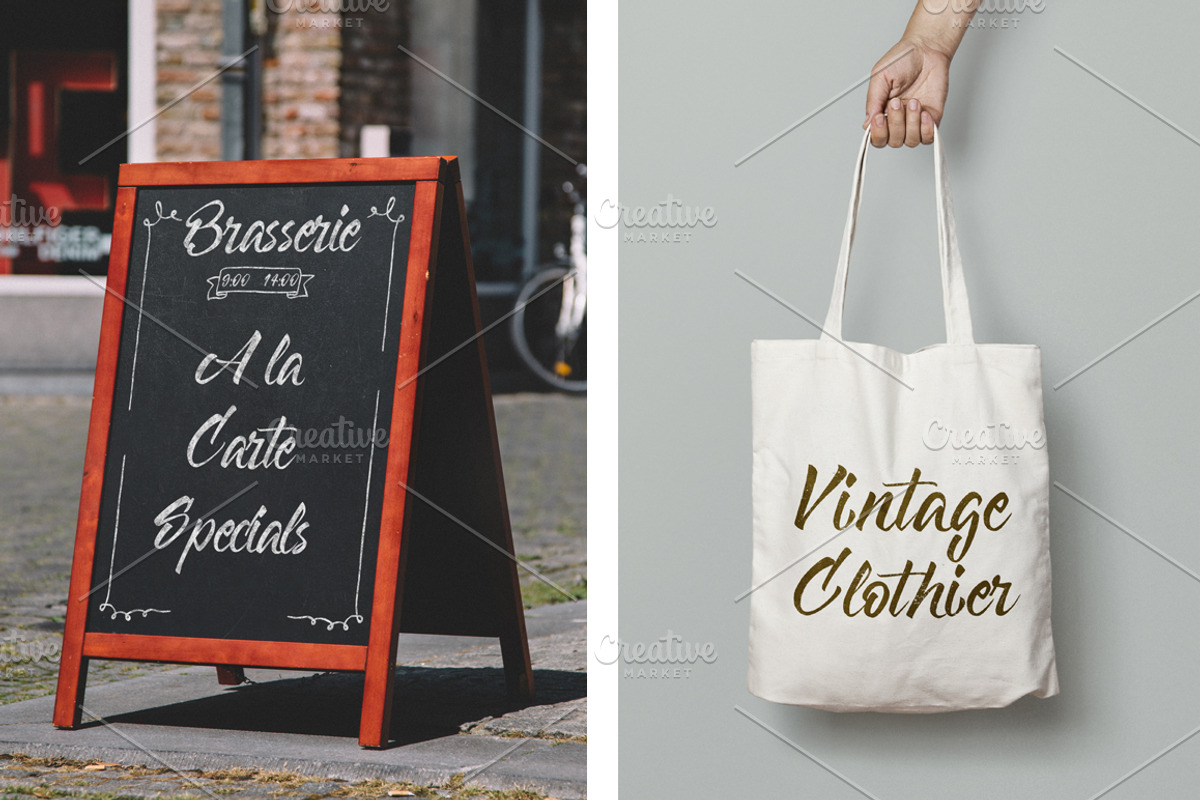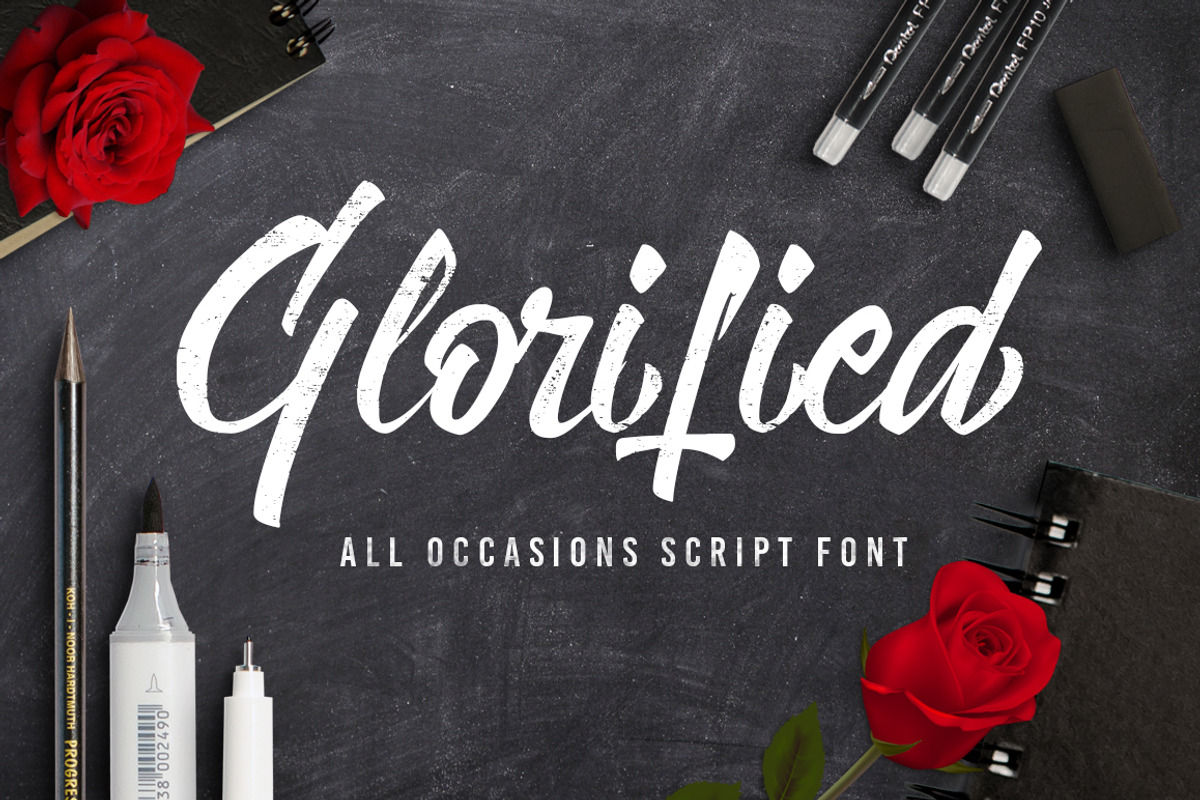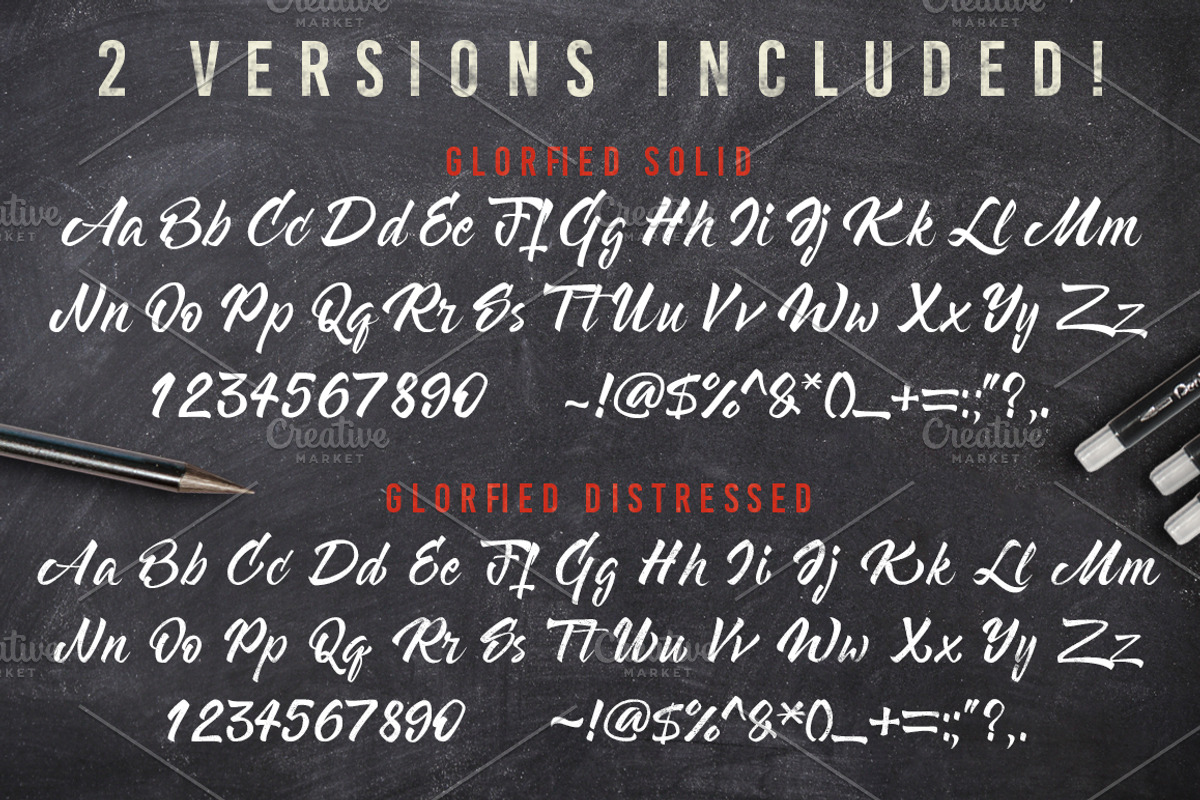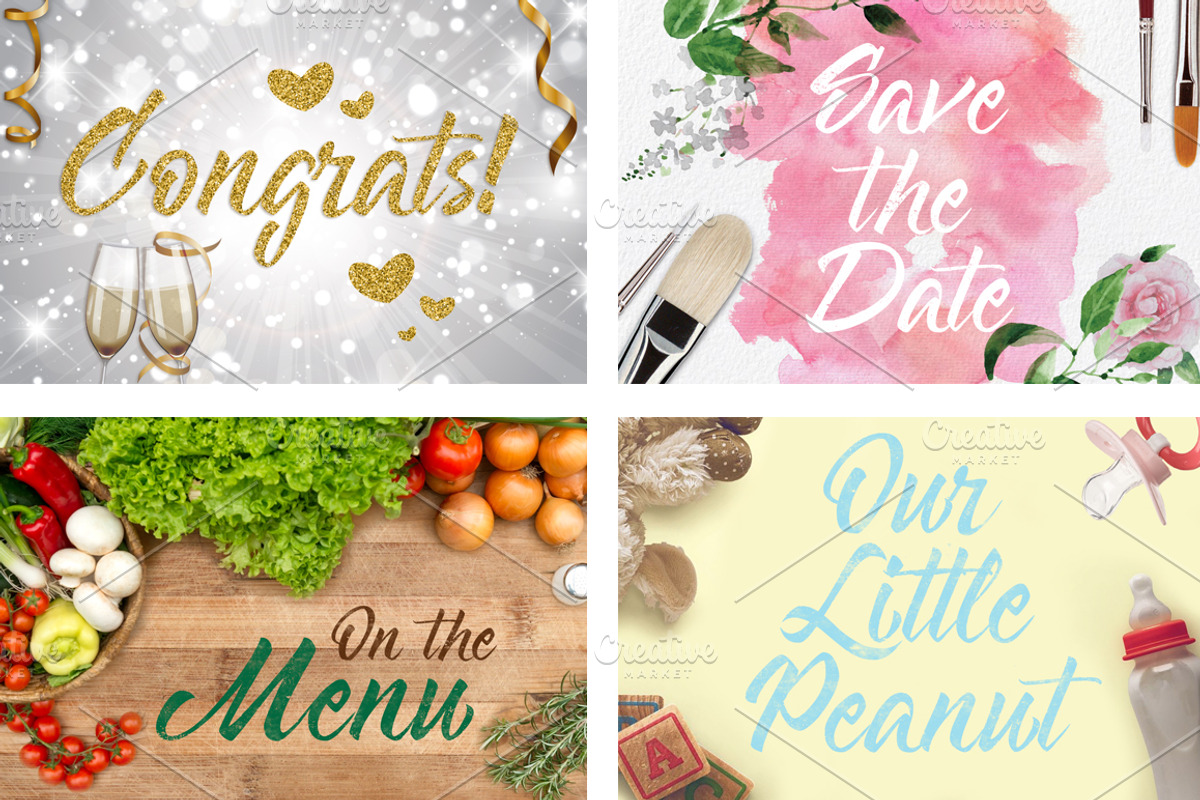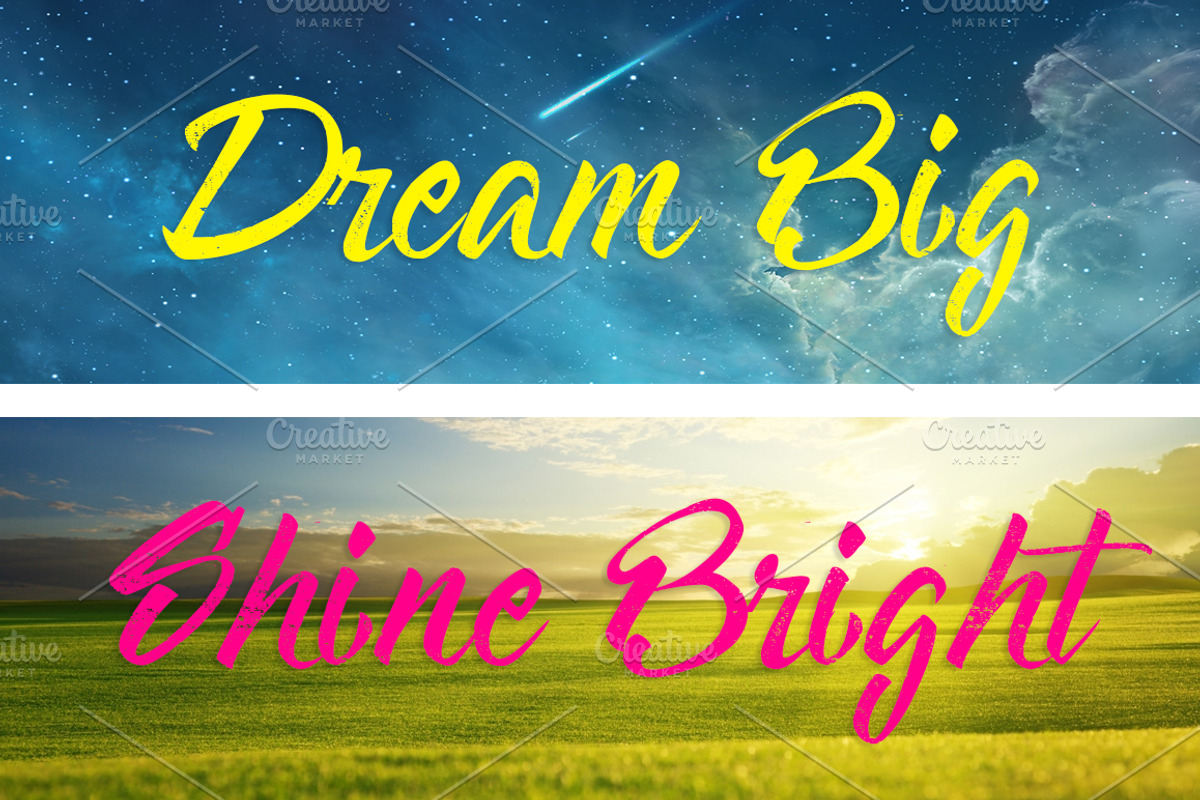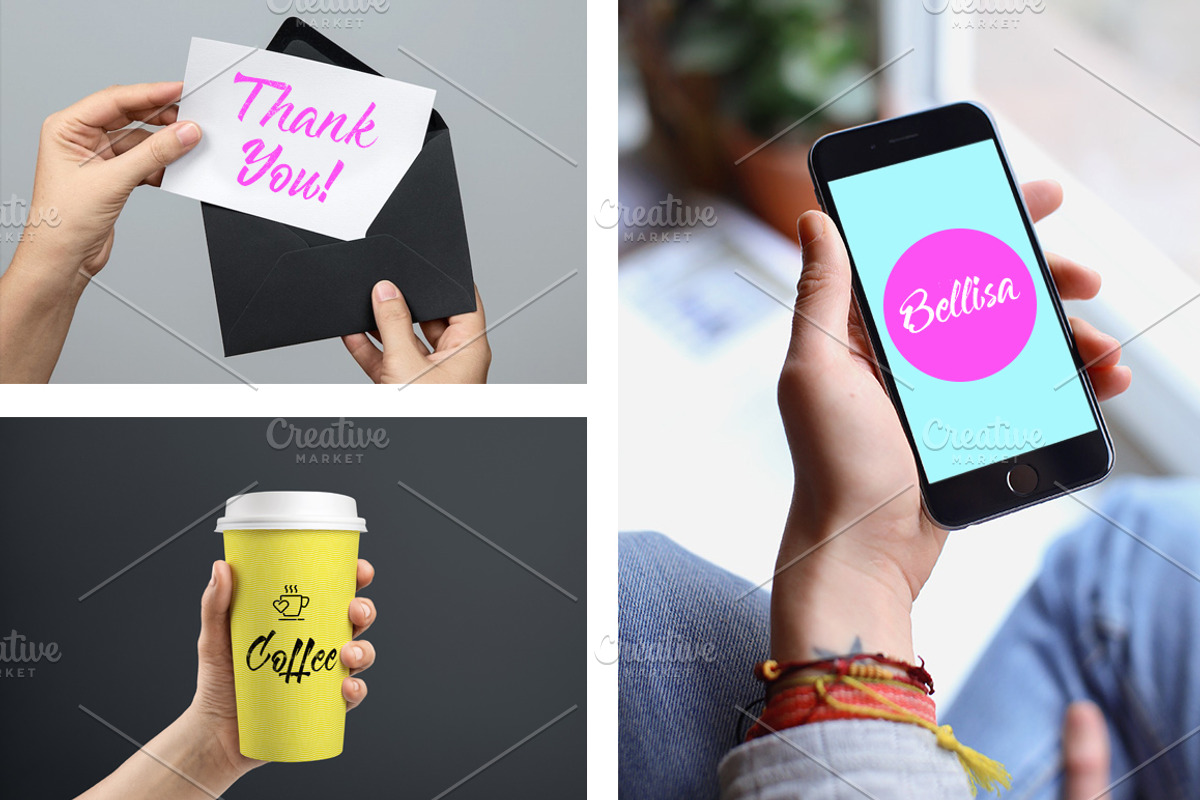
Glorified Script Font
Glorified Script Font by SkyvaraSupply is a font selected for branding, posters, packaging, typography.
Why Glorified Script Font is worth a look
Glorified Script Font by SkyvaraSupply fits naturally into Branding, posters, packaging, typography.